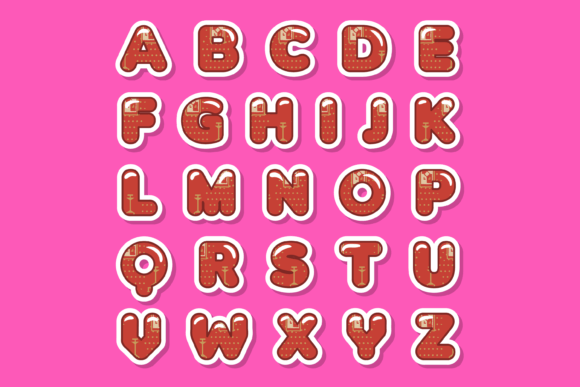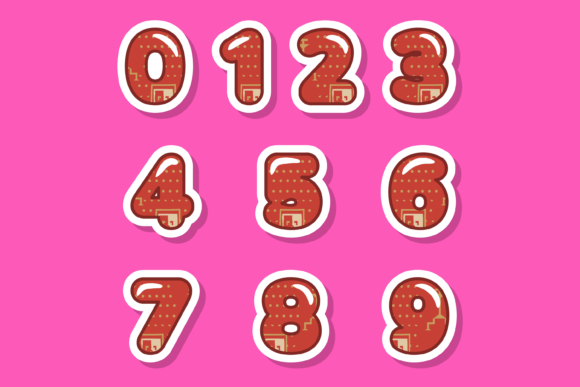
Introduction to Peruvian Art Font
Have you ever been in the midst of a creative project, pouring your heart and soul into a design, only to be held back by the limitations of a font? You’ve spent hours crafting the perfect layout, but the text just doesn’t seem to pop. That’s where the Peruvian Art Font comes in – a game-changing color font that adds a touch of elegance and sophistication to any design.
As a valuable resource for designers, the Peruvian Art Font offers a high-quality solution for custom designs, DIY crafts, and other creative projects. Its transparent background and versatile design make it a perfect addition to any design arsenal. Whether you’re a seasoned pro or a DIY enthusiast, this font is sure to elevate your work and take it to the next level.
Key Features of Peruvian Art Font
- Unique and vibrant designs inspired by Peruvian culture and art, making it a great design resource for creative projects.
- High-quality font with a transparent background, allowing for seamless integration into various design elements.
- Includes a wide range of characters, including letters, numbers, and symbols, to support various languages and creative expressions.
- Designed to be highly legible at various resolutions and sizes, from small text to large display fonts, making it suitable for various design applications.
- Perfect for designers and artists working on creative projects, such as graphics, logos, and typography, where a unique and high-quality font is required.
Honest Review: Peruvian Art Font
I recently stumbled upon the Peruvian Art Font, and I must say it’s a great addition to any design resource collection. The font’s unique blend of traditional and modern styles caught my attention, making it a perfect choice for creative projects that require a touch of cultural flair.
Here are some of the things that work well with the Peruvian Art Font: ✨
- High-quality design that’s perfect for various applications, from print to digital media
- Transparent background, allowing for seamless integration with other design elements
However, there are a few limitations to consider: ⚠️
- Some users may find the font’s style too ornate for certain designs
Overall, I’m impressed with the Peruvian Art Font. Its unique design and high-quality feel make it a valuable addition to any designer’s toolkit. While it may not be suitable for every project, it’s definitely worth considering for those looking for a distinctive and culturally-inspired font.
Peruvian Art Font
The Peruvian Art Font is a versatile design resource that can elevate your creative project to the next level. With its high-quality design, you can use it in a variety of applications, from digital to print media.
Tips for Getting the Most Out of Peruvian Art Font
To get the most out of Peruvian Art Font, use it with a transparent background to create a seamless design. You can also experiment with different font sizes and styles to add visual interest to your project.
The Peruvian Art Font is perfect for creative projects that require a unique and eye-catching design. Some common use cases include:
- Branding and logo design
- Print media, such as brochures and business cards
- Digital media, such as social media graphics and presentations